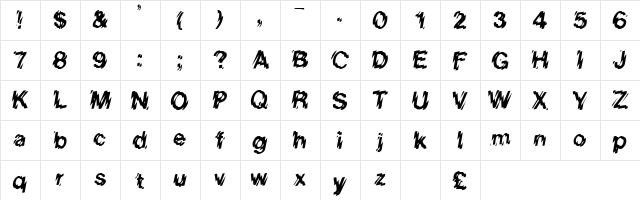
VanishInTheHeat Regular
Design Context for VanishInTheHeat Typeface
VanishInTheHeat is a composed and adaptable typeface that performs quietly and consistently across a wide range of design contexts.